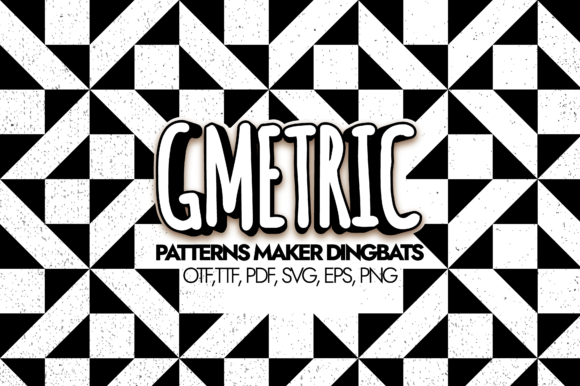
Gmetric Font: Revolutionizing Pattern Creation with Ease
In the world of design, creating visually appealing patterns has always been a task that requires meticulous attention to detail and a significant amount of time. However, with the introduction of Gmetric Font, a dingbat geometric pattern creator, the process has become remarkably straightforward and effortless. Gmetric allows users to generate complex geometric patterns simply by typing any letter or number repeatedly without spaces. This innovative tool has transformed the way designers approach pattern creation, making it more accessible and efficient.
What is Gmetric Font?
Gmetric Font is a unique dingbat font designed to facilitate the creation of geometric patterns. Unlike traditional fonts, Gmetric does not display letters or numbers in the conventional sense but instead uses them as building blocks for intricate designs. By typing a single character repeatedly, users can generate a wide variety of patterns, from simple geometric shapes to complex, detailed designs.
How Does Gmetric Work?
The functionality of Gmetric is remarkably simple. To create a pattern, users just need to:
- Choose a character (letter or number) to use as the base of the pattern.
- Type the character repeatedly without adding any spaces.
- Adjust the font to Gmetric.
As the characters are typed out, they seamlessly connect to form a geometric pattern. The beauty of Gmetric lies in its ability to turn simple repetition into art, allowing for a vast array of designs to be created with minimal effort.
Features of Gmetric Font
Gmetric Font comes with a range of features that make it an indispensable tool for designers:
- Ease of Use: The most significant advantage of Gmetric is its simplicity. It eliminates the need for complex design software or extensive graphic design experience.
- Versatility: With Gmetric, the possibilities are endless. The type of pattern that can be created is largely dependent on the user’s imagination and the characters chosen.
- Time-Efficient: What would traditionally take hours to design can now be accomplished in a fraction of the time, making Gmetric a valuable tool for meeting tight deadlines.
- Customization: Gmetric allows for a high degree of customization. By changing the character used, the pattern’s density, and the scale, designers can create unique designs.
Applications of Gmetric Font
The versatility of Gmetric Font means it can be applied in a variety of contexts:
- Graphic Design: From backgrounds and textures to logos and icons, Gmetric can play a role in virtually any graphic design project.
- Web Design: Web designers can use Gmetric patterns to add visual interest to websites, enhancing user experience without compromising on loading times.
- Textile Design: Designers in the textile industry can use Gmetric to create unique fabrics with geometric patterns.
- Art and Craft: Beyond professional applications, Gmetric is also a valuable tool for hobbyists and those who enjoy crafts and DIY projects.
Tips for Using Gmetric Font Effectively
To get the most out of Gmetric, consider the following tips:
- Experiment with Characters: Different characters produce different patterns. Spend some time experimenting to find the character that works best for your design.
- Play with Scale: The scale of the pattern can dramatically change its appearance. Don’t be afraid to adjust the size to achieve the desired effect.
- Combine Patterns: For more complex designs, try combining different patterns created with Gmetric.
- Adjust Color and Contrast: The right color scheme can elevate your pattern from good to great. Experiment with different colors and contrast levels.
Gmetric Font represents a significant advancement in the field of design, offering a simple yet powerful tool for creating geometric patterns. Its ease of use, versatility, and efficiency make it an excellent choice for designers of all skill levels, from professionals to hobbyists. Whether you’re looking to create intricate designs for a project or simply want to explore your creative side, Gmetric provides an accessible and fun way to do so.
As design continues to evolve, tools like Gmetric are at the forefront, pushing the boundaries of what’s possible and making high-quality design more accessible than ever. With Gmetric Font, the possibilities are endless, and the future of design looks brighter and more creative than ever.